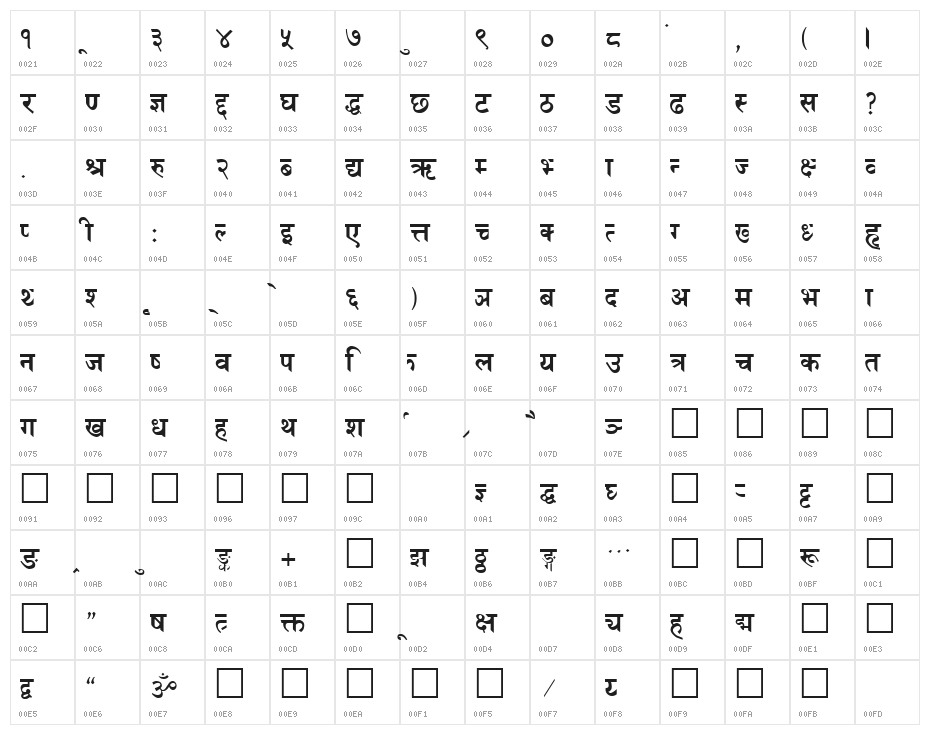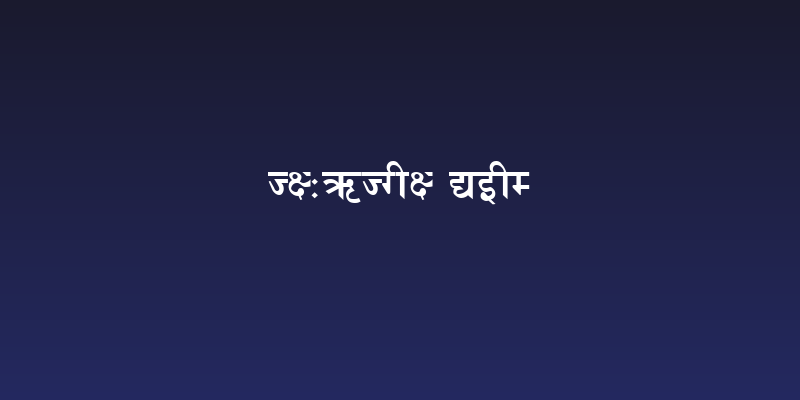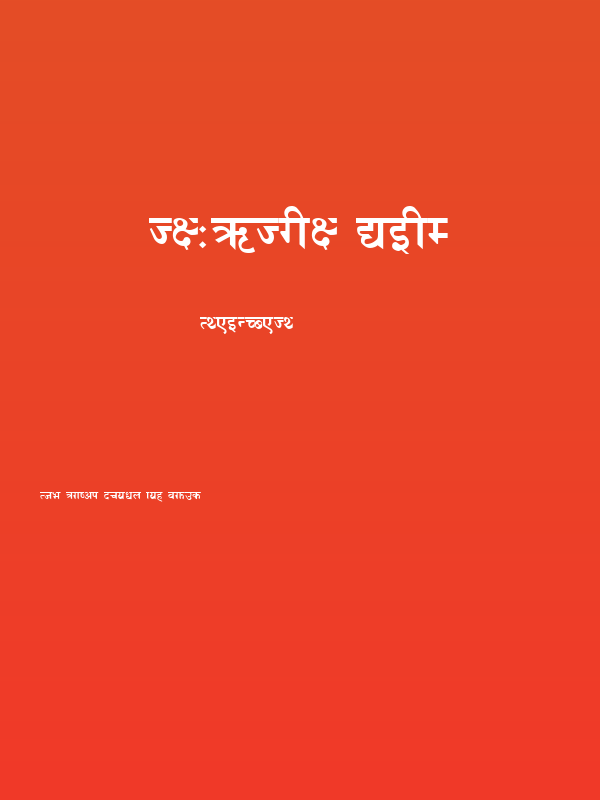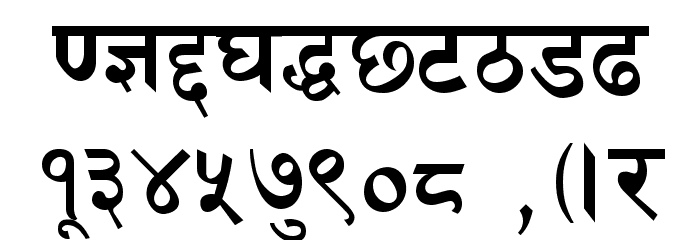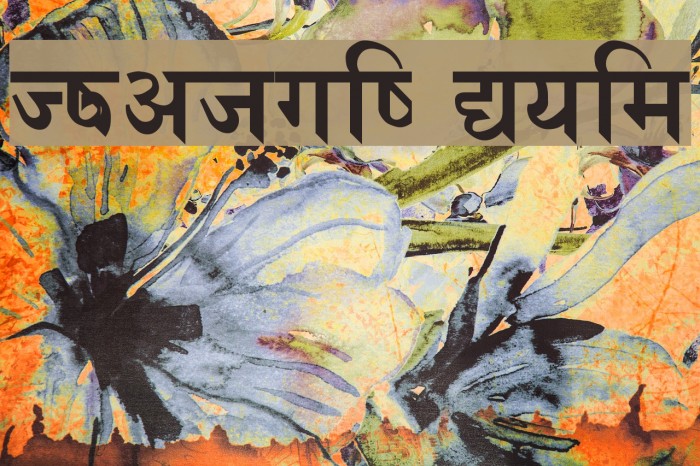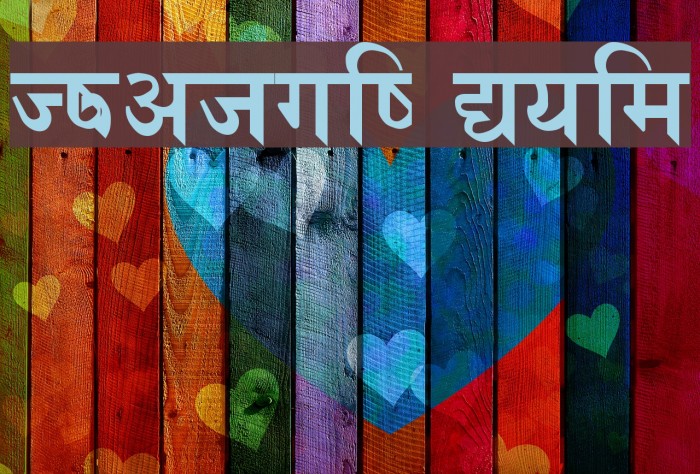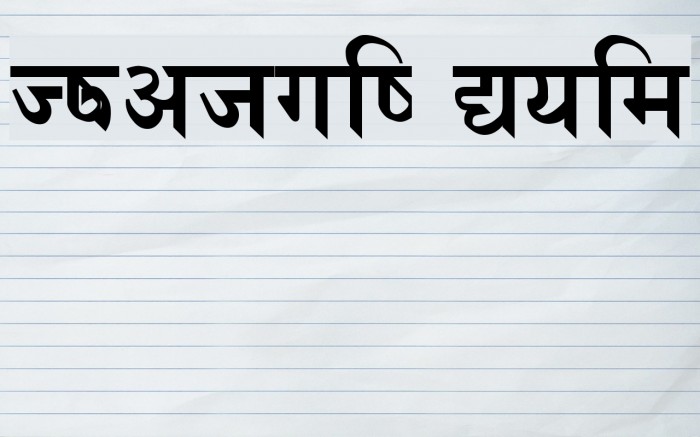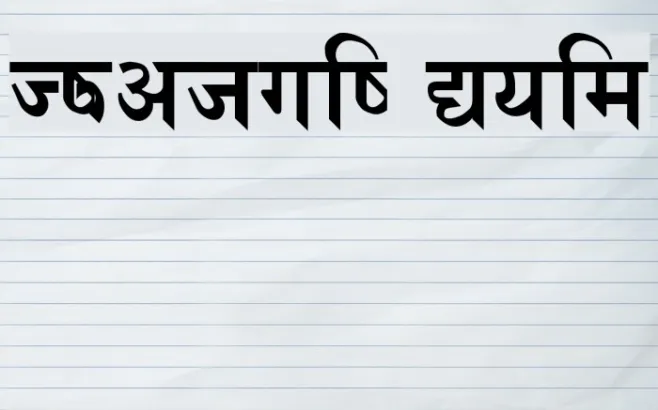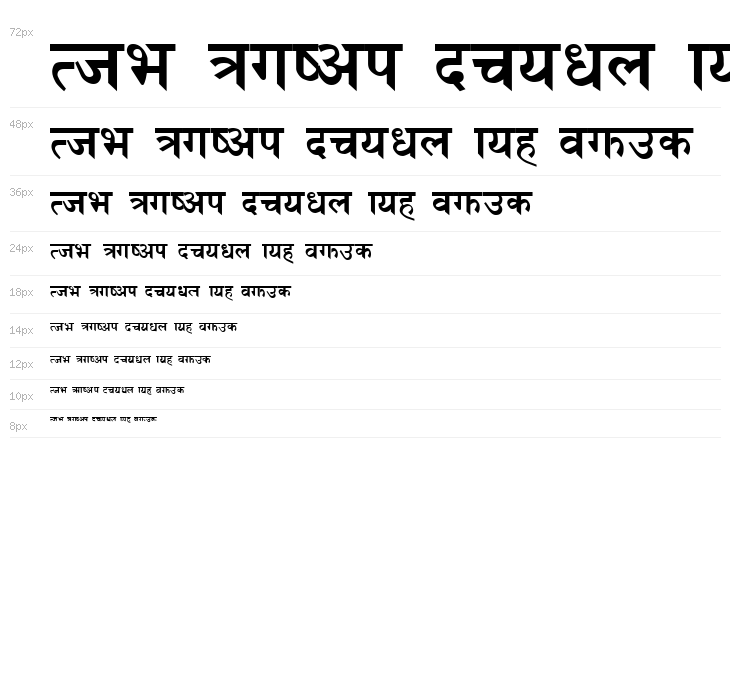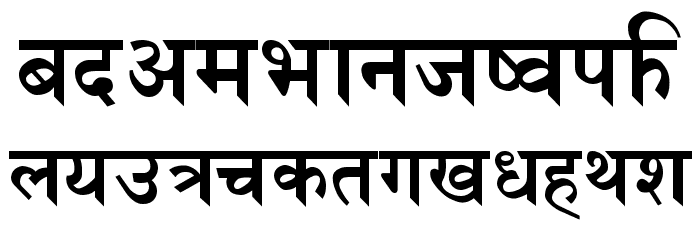
Himchuli Bold Font
Himchuli Bold Description
This font features a bold and striking design with strong, thick strokes and a traditional aesthetic. The characters are well-defined with a high level of contrast, making them stand out prominently. The script is reminiscent of classical calligraphy, with elegant curves and sharp angles that give it a distinctive and authoritative appearance. The spacing between characters is tight, contributing to a compact and cohesive look. This font is particularly suitable for settings where a sense of tradition and formality is desired, such as in cultural or historical contexts.
| Overall Style | Traditional |
| Use Case | Headlines, Logos, Signage |
| Proposed Projects | Ideal for cultural publications, historical documents, formal invitations, and signage requiring a traditional touch. |